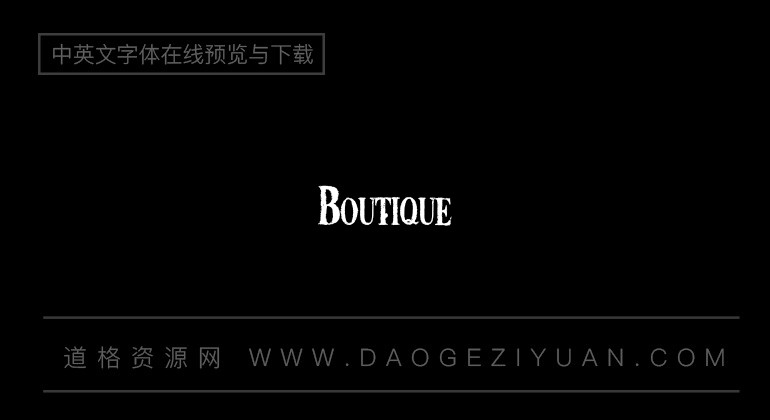
Boutique
Boutique is a very good handwriting art font, with a good visual sense, suitable for cultural propaganda design, commercial brand advertising and product packaging design and personalized text typesetting and other more scenes.